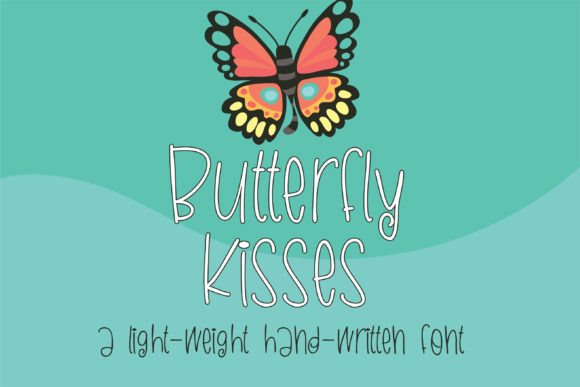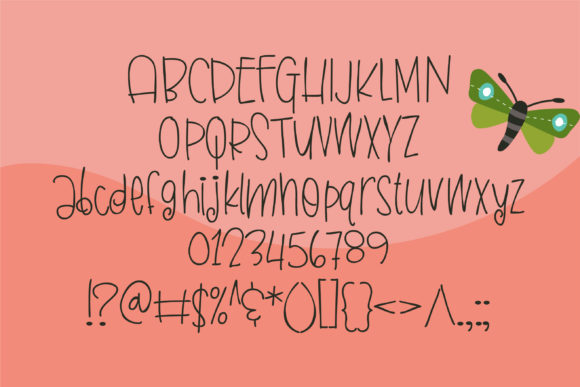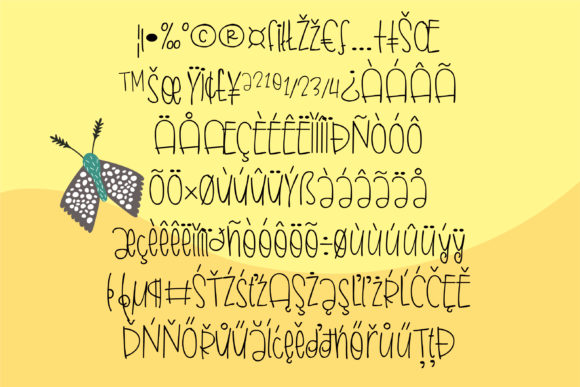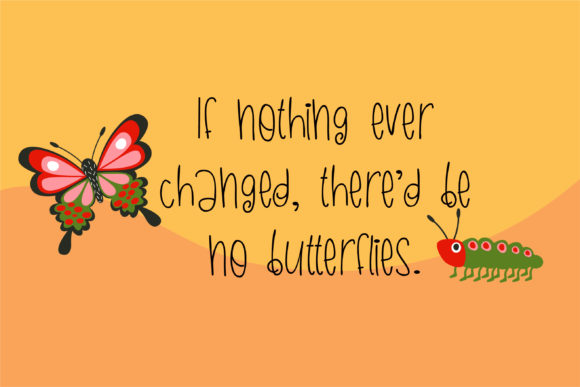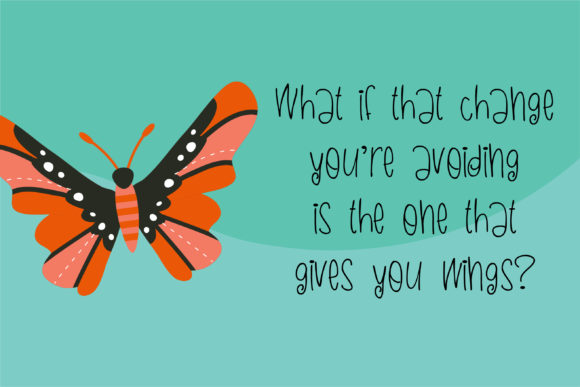
Butterfly Kisses Font
About Butterfly Kisses Font
Butterfly Kisses is a casual and cool handwritten font with an adorable feel. Fall in love with its unique charm.